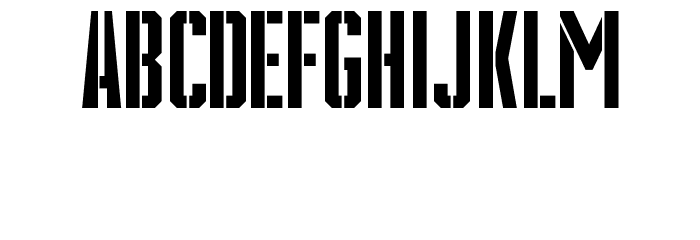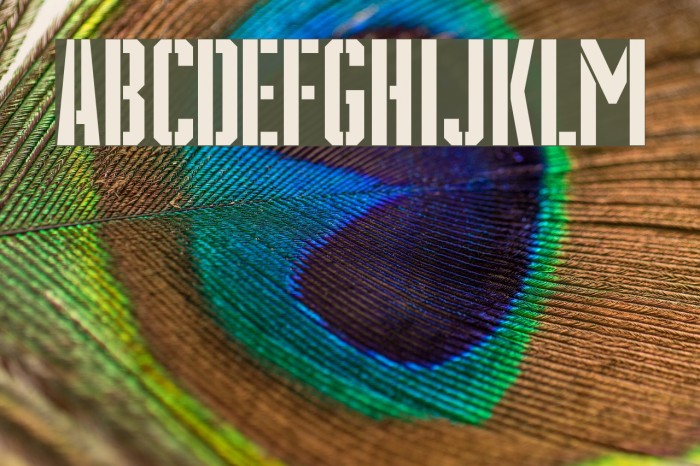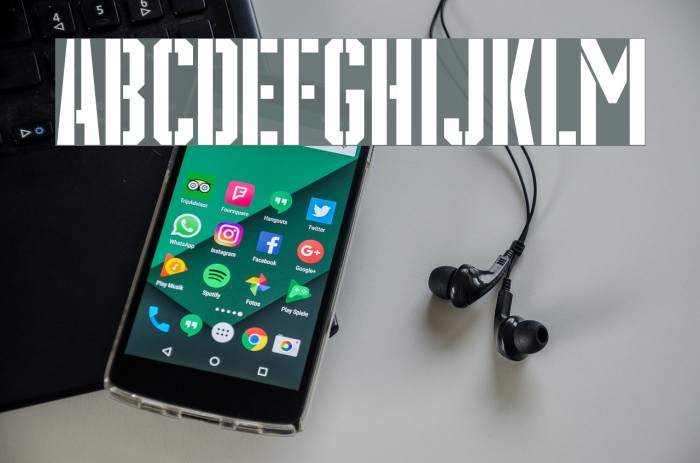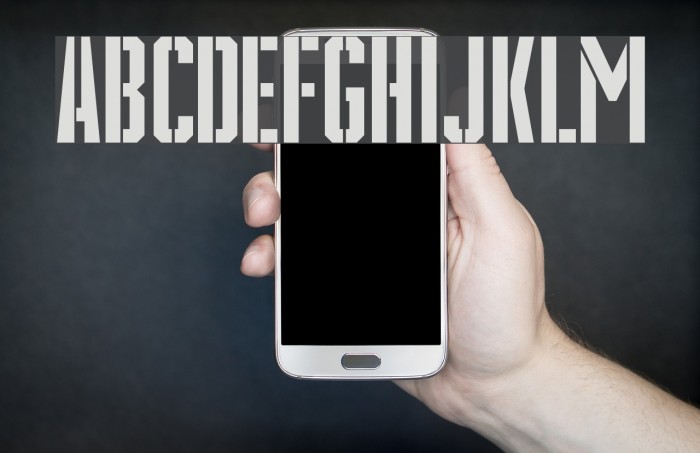
Grenade Stencil Regular Font
This font features a bold, stencil-like design with sharp, angular edges and distinct cut-out sections typical of stencil fonts. The uppercase letters are uniform in height, creating a strong and impactful appearance. The numbers and special characters maintain the same bold and structured style, ensuring consistency across all characters. The font's design is reminiscent of military or industrial themes, making it ideal for projects that require a rugged and authoritative look.
A bold, stencil-style font with sharp, angular edges and a military-inspired design.
- Proposed Projects: Ideal for military-themed posters, industrial design projects, signage, and branding that requires a bold and authoritative presence.
- Use Case: Headlines, Logos, Signage